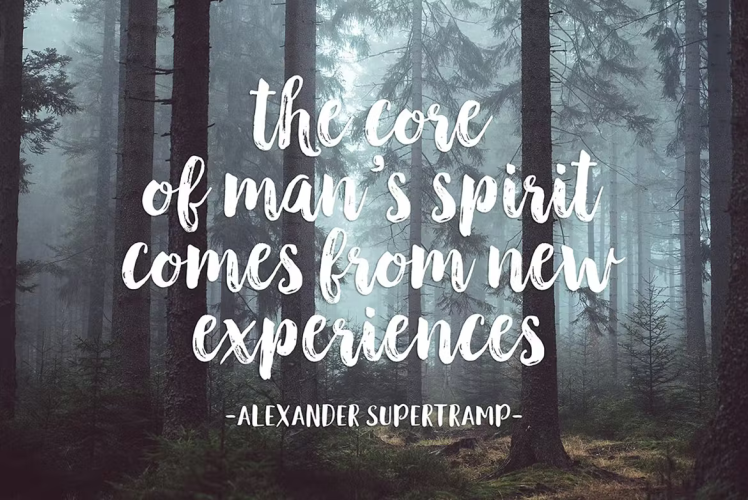
Black And White Typeface Font
Black and white script is a hand brushed font created with a brush and ink, bold and irregular baseline. Contains a complete set of lowercase, uppercase, alternates, lig…
Black and white script is a hand brushed font created with a brush and ink, bold and irregular baseline. Contains a complete set of lowercase, uppercase, alternates, ligatures, punctuation, numbers, and multilingual support. And additional black and white display, working in harmony with black and white script to create typography awesome creations. Get some inspiration from the preview above. Contains a complete set of lowercase with normal baseline, uppercase with irregular baseline, ligatures, punctuation, numbers, and multilingual support. This font ideal for use in watercolor design or lettering style bold hand, such as posters, wedding elements, t-shirt, apparel, cover books, business cards, greeting cards, branding, merchandise, invitations and handmade quotes and more. Which can be accessed using OpenType savvy programs like Adobe Illustrator, Adobe InDesign, CorelDraw X6-X7, Microsoft Word 2010 or later versions.
Where Black And White Typeface Font works best
A short phrase in Black And White Typeface Font carries warmth that a typeset sans cannot fake; keep the rest of the card plain.
Chalkboard-style headings in Black And White Typeface Font make a menu feel hand-made. Keep the dish descriptions in a simple face so prices stay readable.
One line of Black And White Typeface Font over a photo is enough; the script carries the tone and the caption does the work.
What kind of work does Black And White Typeface Font suit?
It sits in the Script And Handwritten group and reads as bold, branding, display, handwritten. That makes it a candidate wherever those qualities help: headings, packaging, social graphics and brand work. Set it at the size you plan to use before deciding.